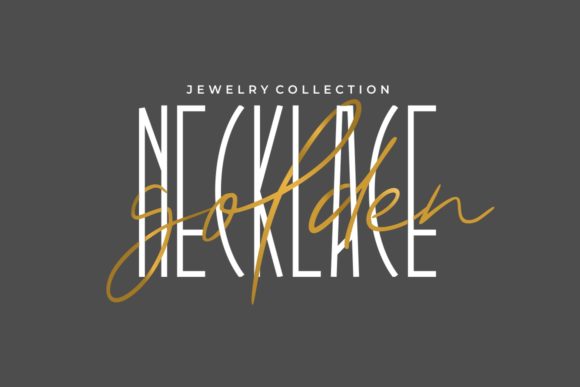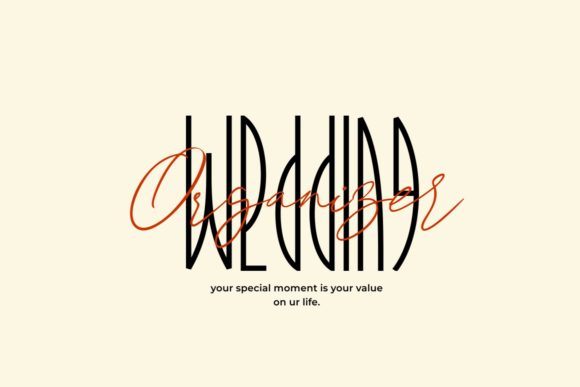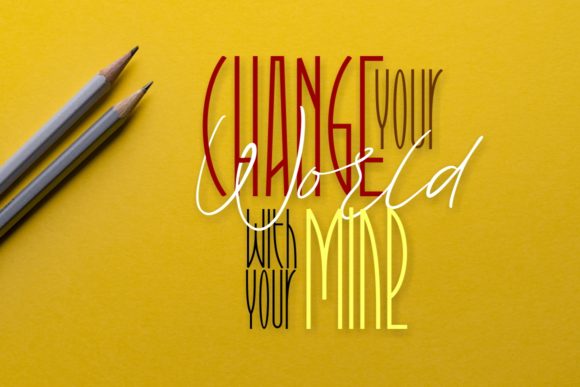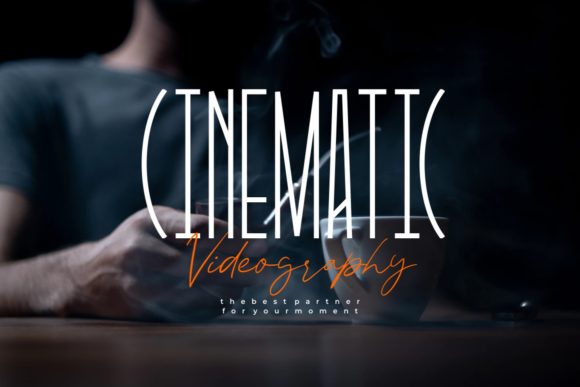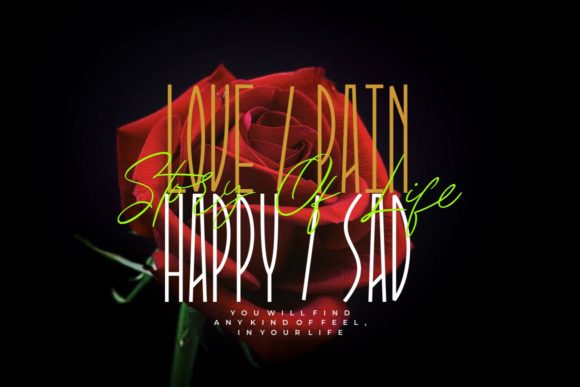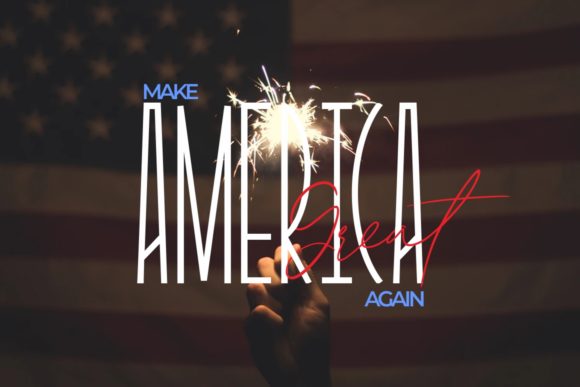
The Perfect Pair: Unleashing Creativity with Attaira Duo Font
There’s nothing quite like the thrill of discovering a new font that sparks inspiration. You’re scrolling through your favorite design resources, and suddenly, a beautiful script catches your eye. The curves, the flair, the elegance – it’s the perfect starting point for your next creative project. And that’s exactly what Attaira Duo Font is all about – providing a harmonious pairing of script and sans serif fonts that will elevate your designs to the next level.
As a designer, you know the value of having a versatile font at your disposal. Attaira Duo Font is the perfect tool to mix and match, creating unique and eye-catching combinations that will make your designs stand out. Whether you’re working on a wedding invitation, a social media campaign, or a book cover, this font pair is sure to deliver.
Key Features of Attaira Duo Font
- Font Family: Attaira Duo is a unique, hand-drawn font family that combines elegance and sophistication.
- Character Count: The font family consists of 500+ glyphs, including uppercase and lowercase letters, numerals, and special characters.
- Unique Characteristics: Attaira Duo features subtle hand-drawn imperfections, giving it a distinctive, human touch that sets it apart from other fonts.
Attaira Duo Font Review
The Attaira Duo Font is a beautiful, elegant font that I’ve had the pleasure of working with. It’s perfect for creating a luxurious and sophisticated look in any design project. ✨ The font’s unique pairing of two complementary weights creates a visually appealing effect, making it stand out in any context.
Here are some key features that I appreciate about Attaira Duo Font:
- ✨ Elegant and sophisticated look
- ✨ Unique pairing of two complementary weights
- ✨ High-quality typography
- ✨ Versatile and suitable for various design projects
However, I do have a few minor issues with the font:
- ⚠️ Limited language support (does not include some languages like Vietnamese)
- ⚠️ Some characters may not render correctly in certain contexts
Overall, I’m impressed with the Attaira Duo Font. It’s a high-quality font that’s perfect for designers looking to create a luxurious and sophisticated look in their projects. While it has some limitations, I believe it’s a great addition to any font library.
Some tips for getting the most out of Attaira Duo Font include:
– Using it for headings and titles to add a touch of elegance and sophistication.
– Pairing it with other fonts to create a unique and interesting font combination.
– Using it for designs related to luxury, fashion, and high-end products.
Alternatives to Attaira Duo Font
Playfair Display is an elegant, high-end serif font suitable for luxury brands and high-end designs. It features beautiful flourishes and swashes, making it perfect for use in invitations, wedding stationery, and other special occasions. Compared to Attaira Duo Font, Playfair Display has a more classic and traditional feel, while Attaira Duo Font has a modern and minimalist aesthetic.
Lato is a modern sans-serif font designed for digital use. It features clean lines, rounded edges, and a high x-height, making it easy to read on screens. Lato is suitable for use in logos, headings, and body text, and is a great alternative to Attaira Duo Font for designers who want a modern and versatile font.